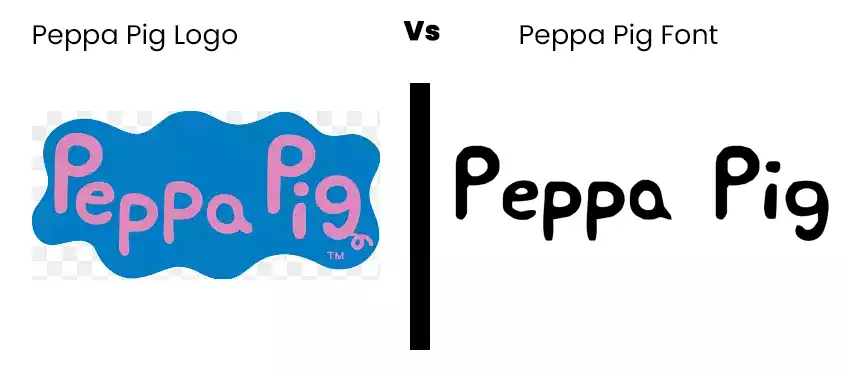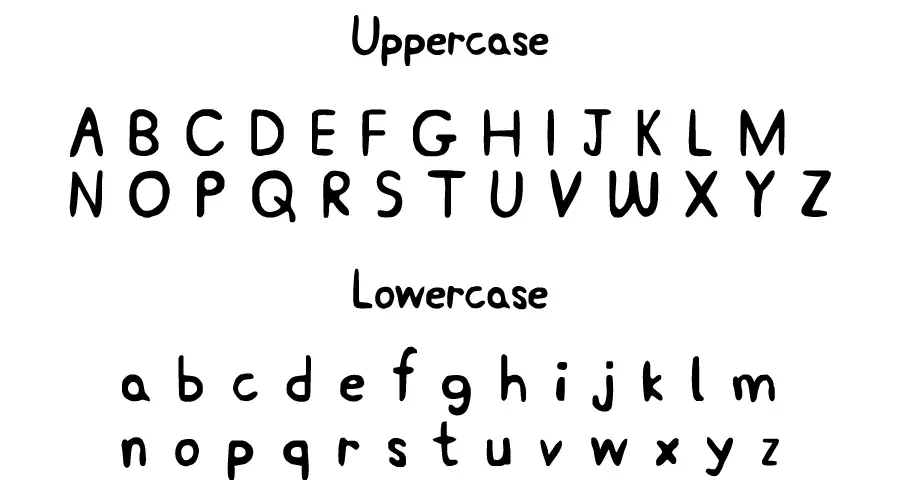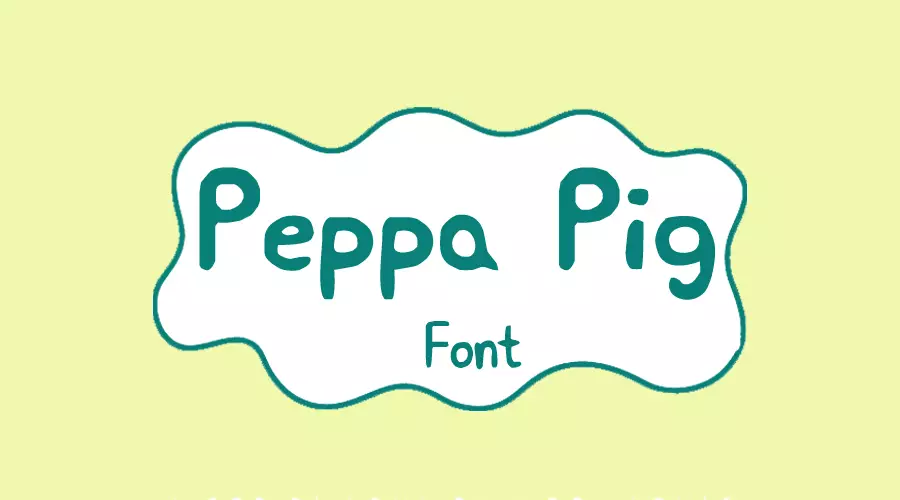
What is the Peppa Pig font?
The Peppa Pig font is a custom font created specifically for the show, but a fan-made font based on the title lettering has also been created and is named “Peppa Pig” font. The Peppa Pig font was designed by SpideRaY and published by KiddieFonts in 2011.
It is a bold and beautiful handwriting typeface that is suitable for personal use and reproducing the logo. It is not widely available for public use, and it is only provided in TrueType format, which includes uppercase and lowercase letters, numerals, and common punctuation marks.
What is the Peppa Pig logo?
The Peppa Pig logo is the visual representation of the Peppa Pig brand and is used to identify the show and its related products.
The logo usually features the image of Peppa Pig, the main character of the show, along with the name “Peppa Pig” written in a specific font. The logo often appears on the show’s merchandise, such as toys, clothing, and books, as well as on promotional materials like posters and advertisements.
The logo can vary slightly depending on the context and medium it is used in, but it generally features Peppa Pig and the “Peppa Pig” text in a recognizable and consistent style.